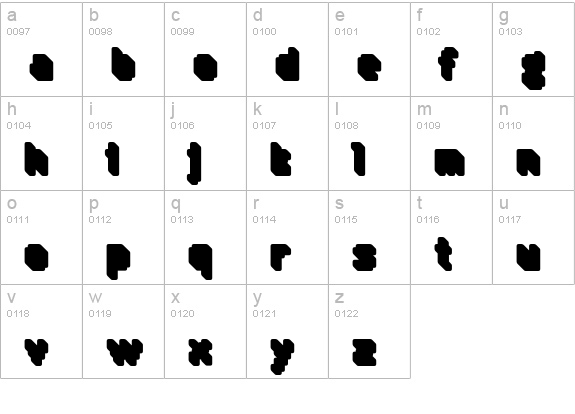
Algol VII Font Details
Introducing Algol VII font, a modern and sleek typeface designed for those seeking a touch of sophistication in their projects. With its clean lines and sharp edges, Algol VII exudes a sense of elegance and professionalism. This versatile font is perfect for a wide range of design projects, from logos to branding materials to website design. What sets Algol VII font apart is not only its stylish aesthetic but also its accessibility - it is available for free download at FontsMarket.com. That's right, you can add this stunning font to your collection without any cost, making it a valuable asset for both personal and commercial use. Whether you're a graphic designer looking to elevate your projects or a business owner seeking a polished look for your branding, Algol VII font is sure to impress. Download it today and discover the endless possibilities that this beautiful typeface has to offer.